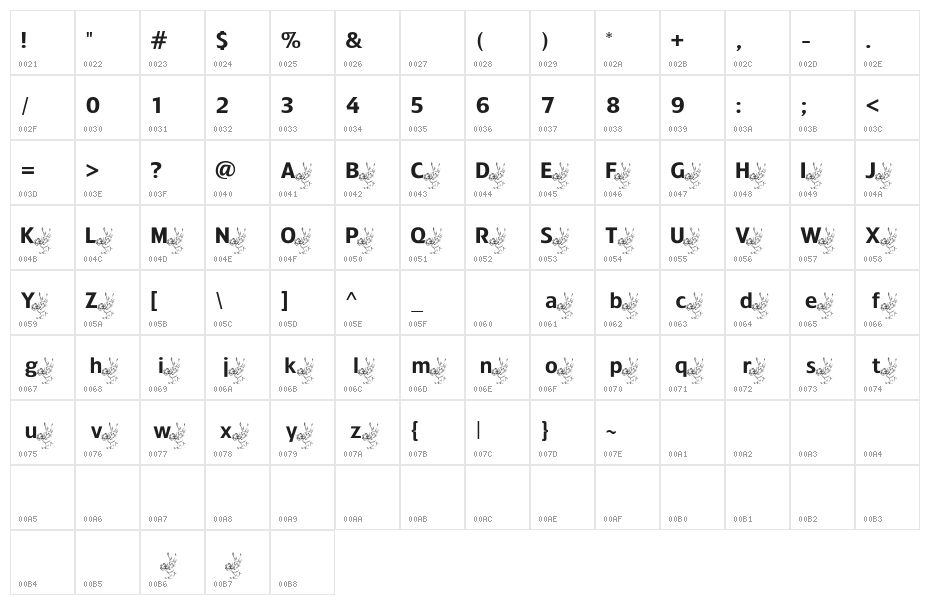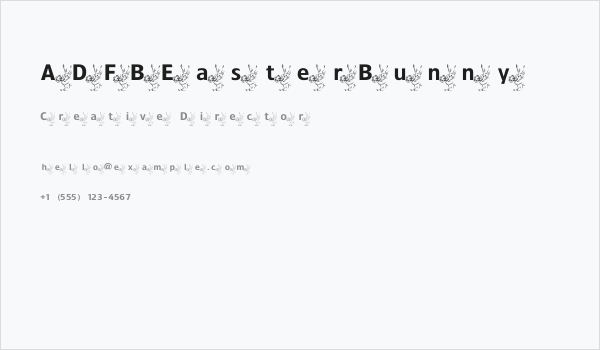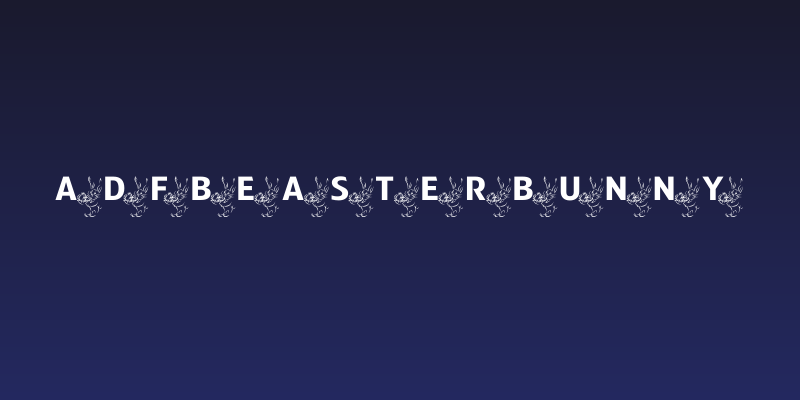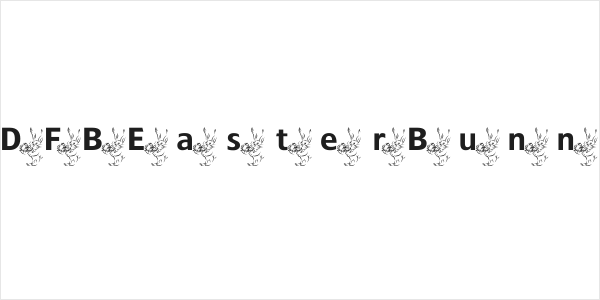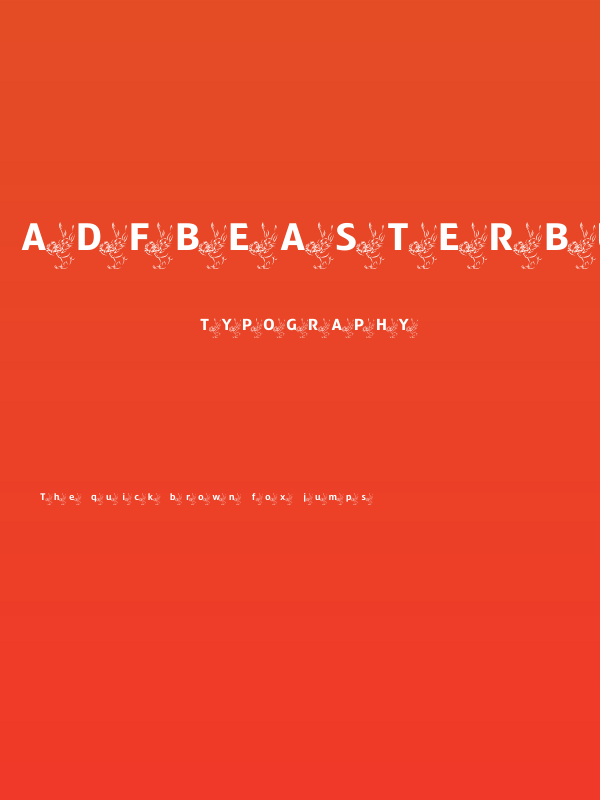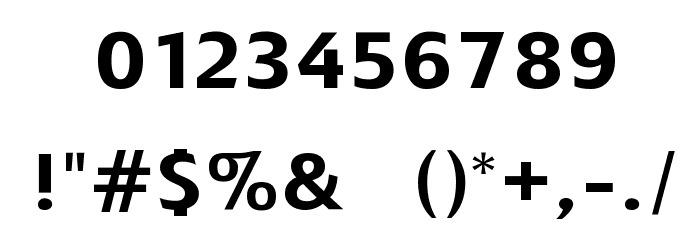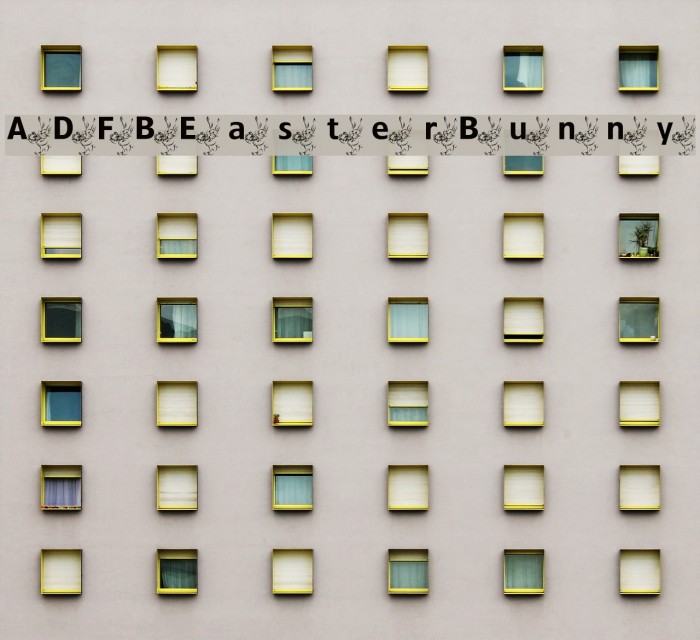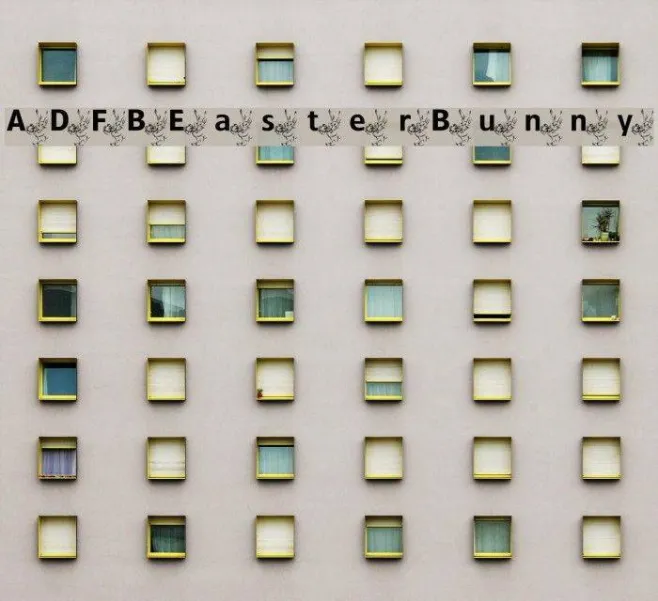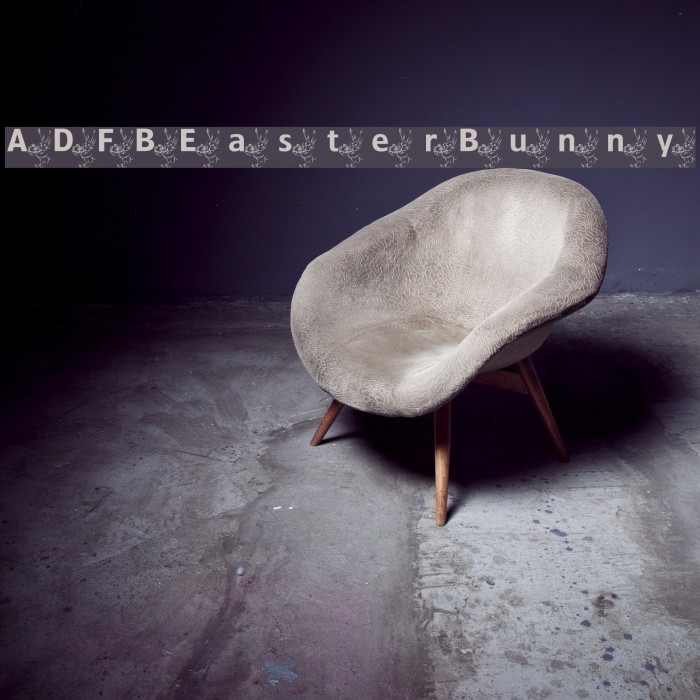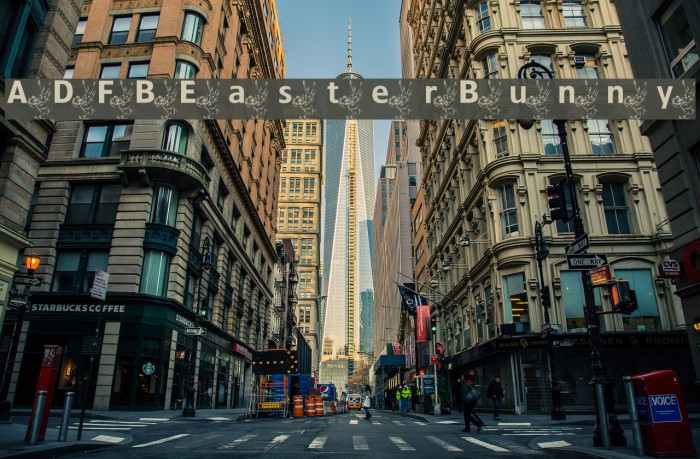
ADFBEasterBunny Font
ADFBEasterBunny Description
This playful and whimsical font features a unique design where each letter is accompanied by a small, detailed illustration of an Easter bunny. The uppercase and lowercase letters are bold and clear, making them easily readable despite the decorative elements. The numbers are also bold and maintain a consistent style with the alphabet. Special characters are included, ensuring versatility for various uses. The font combines a sense of fun with functionality, making it suitable for festive and lighthearted projects.
| Proposed Projects | Ideal for Easter-themed invitations, children's books, festive greeting cards, and playful branding materials. |